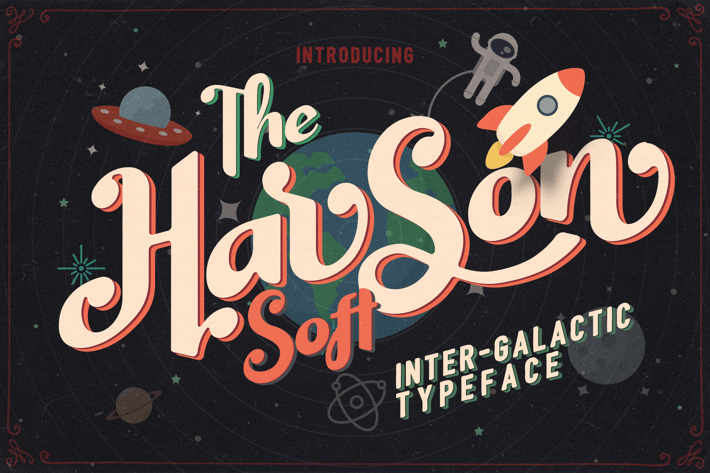
Harson Soft - Intergalactic Typeface
Harson Soft was inspired by old magazine and classic movie titles.\
Harson Soft Version comes with uppercase, lowercase, numerals, punctuations, currency symbols and many variations on each characters include opentype alternates, and common ligatures.\
Also supported with Contextual Alternate so the alternate characters will generated automatically on every final character when typing a word.
Harson Soft perfect to be use for logotype, letterhead, poster, apparel design, games, movie title, label and etc.
Main Features:
+ Soft and Soft-Italic style.
+ Standard characters set (uppercase, lowercase, numerals, punctuations, and currency symbols).
+ Multilangual (Accented characters available).
+ Common Ligatures.
+ Uppercase Alternates (best used as opening character).
+ Lowercase Alternates (best used as final character).
+ Contextual Alternates (auto generate final lowercase alternate when typing).